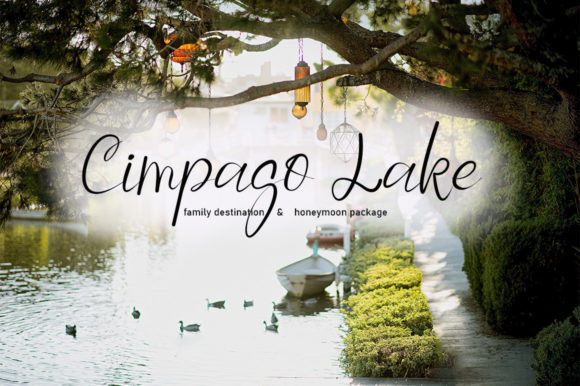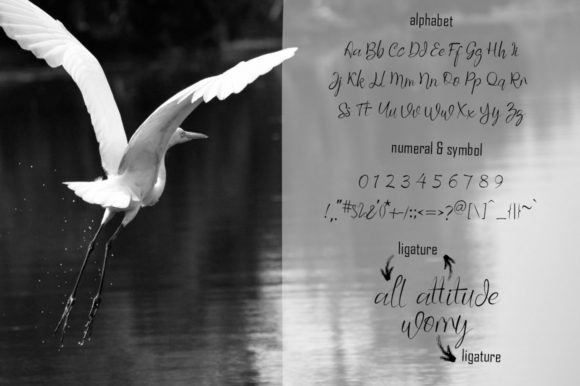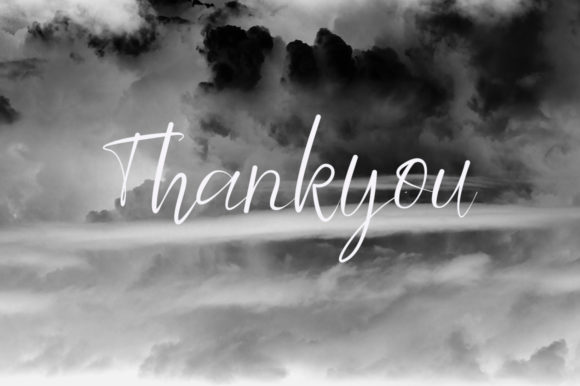
Discover the Elegance of Black Swan Font: A Delicate Handwritten Masterpiece
Are you a designer or crafter looking for a font that exudes elegance and sophistication? Look no further than the Black Swan Font. This delicate and elegant handwritten font is sure to capture your heart with its distinct and well-balanced letters, making it a masterpiece for any design project.
The Characteristics of Black Swan Font
Black Swan Font boasts an incredibly versatile style that can be used to create spectacular designs. Its unique characteristics include:
- Delicate and elegant: The font’s slender lines and curves create a sense of refinement and luxury, perfect for designs that require a touch of sophistication.
- Handwritten: The font’s handwritten nature gives it a personal and organic feel, making it ideal for projects that require a human touch.
- Distinct and well-balanced letters: Each letter is carefully crafted to ensure that the font is easy to read and visually appealing.
- Versatile: Black Swan Font can be used for a wide range of design projects, from wedding invitations and stationery to branding and packaging.
Why Designers and Crafters Love Black Swan Font
So, why do designers and crafters love Black Swan Font? Here are just a few reasons:
- High-quality: Black Swan Font is a high-quality font that is designed to produce crisp and clear results, even at small sizes.
- Unique and creative: The font’s unique style and characteristics make it perfect for designers and crafters who want to add a touch of personality to their designs.
- Time-saving: With Black Swan Font, you can create professional-looking designs in no time, saving you time and effort.
Tips for Using Black Swan Font
Here are some tips for using Black Swan Font to create stunning designs:
- Pair it with a bold font: Black Swan Font looks stunning when paired with a bold font. Try pairing it with a sans-serif font for a modern and edgy look.
- Use it for headings and titles: The font’s elegant and refined style makes it perfect for headings and titles. Use it to add a touch of sophistication to your designs.
- Experiment with colors: Black Swan Font looks stunning in a variety of colors. Experiment with different colors and combinations to find the perfect look for your design.
- Use it for digital and print designs: The font is versatile and can be used for both digital and print designs. Use it for everything from social media graphics to business cards and brochures.
In conclusion, Black Swan Font is a delicate and elegant handwritten font that is sure to capture your heart. Its distinct and well-balanced letters make it a masterpiece for any design project. With its incredibly versatile style, ease of use, and high-quality design, it’s no wonder that designers and crafters love Black Swan Font. Whether you’re looking to create spectacular designs for digital or print, Black Swan Font is the perfect choice.